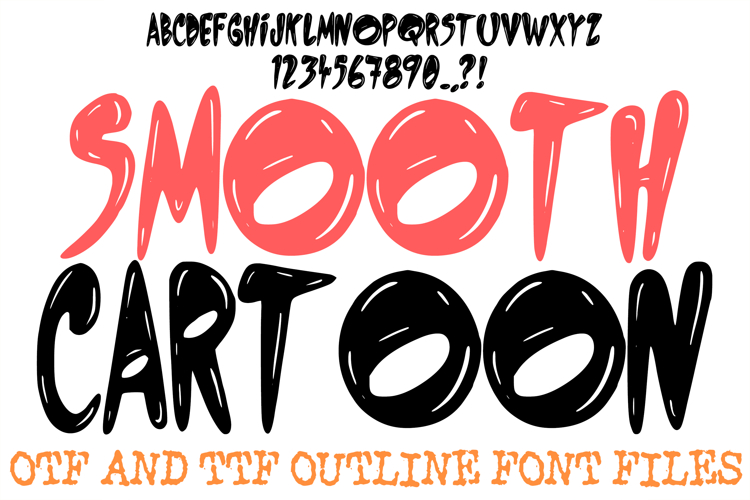
The Smooth Cartoon Font is a high-energy, playful display typeface bursting with classic animation charm and bold street-art style. Featuring plump, organic curves and elongated fluid strokes, each letterform is detailed with sleek, built-in shine lines that mimic thick glossy ink or fresh vinyl stickers. This bouncy, expressive alphabet delivers an immediate friendly impact, making it an excellent choice for designers working on children's book titles, animated streaming overlays, summer camp branding, creative vlog graphics, and custom sticker sets.
The design masterfully combines a variable vertical rhythm with super-smooth outlines, giving your text a fun, hand-drawn look that flows naturally across any layout. Its heavy visual weight and cartoonish proportions ensure excellent readability from a distance, making it incredibly effective for prominent headlines and merchandise. Whether you are crafting a standout header for a youthful brand, designing eye-catching apparel prints, or building custom decal cutouts, this font injects a joyful, dynamic personality into your digital toolkit.
Glossy Pop-Art Highlights: Built-in white reflection slits give the heavy letterforms a sleek, three-dimensional look that mimics wet marker ink or shiny plastic.
Fluid, Bouncy Architecture: Elongated descenders and varying letter heights completely reject stiff geometry for a lively, hand-rendered animation feel.
Massive Display Presence: Thick, bold silhouettes anchor your layouts, giving short phrases and primary titles incredible graphical weight on packaging or screens.
Clean Vector Outlines: Perfectly sculpted curves ensure crisp scaling and effortless cutting, allowing you to easily adjust fill colors to match any palette.